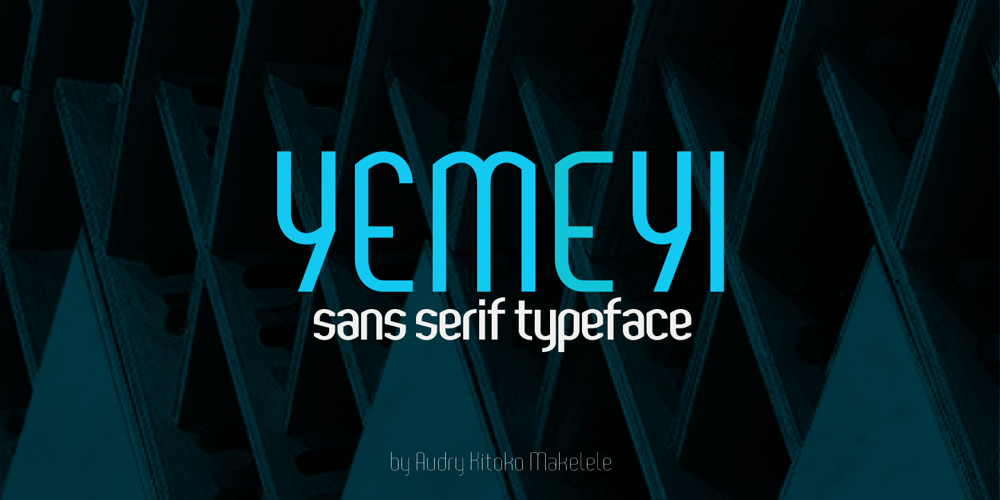
Yemeyi Font Family was designed by Audry Makelele and published by AukimVisuel. Yemeyi contains 59 styles and family package options. Yemeyi family is a modern and daring display font. No matter the topic, this font will be an incredibly asset to your fonts’ library, as it has the potential to elevate any creation.Yemeyi is a simple and neat lettered sans serif font. Add this font to your creative ideas and notice how it will make them stand out!